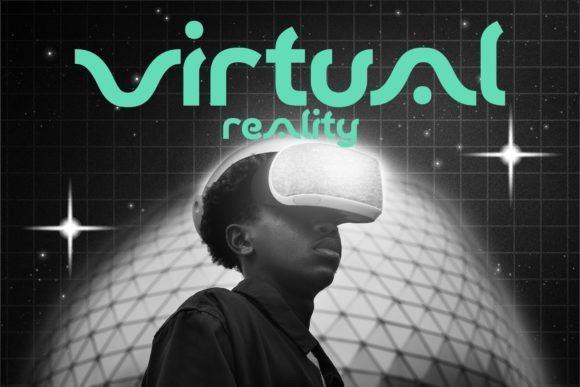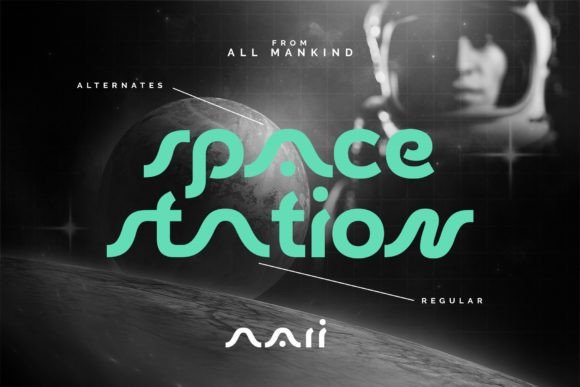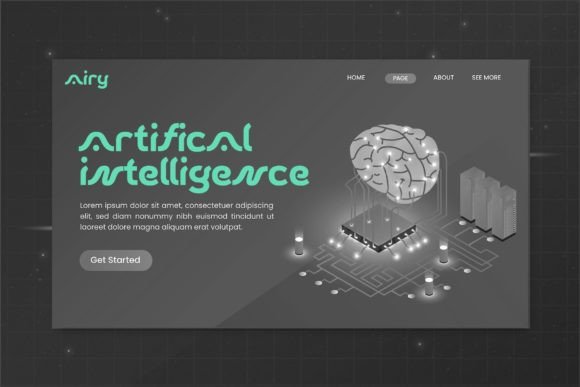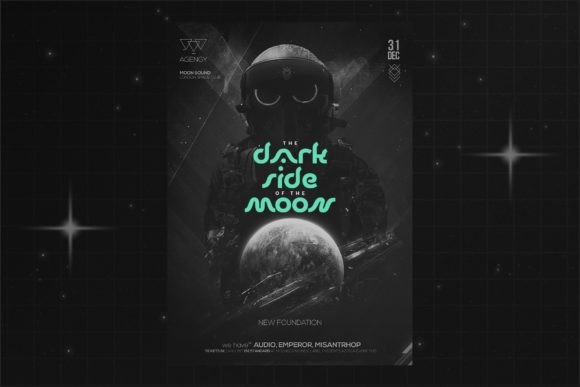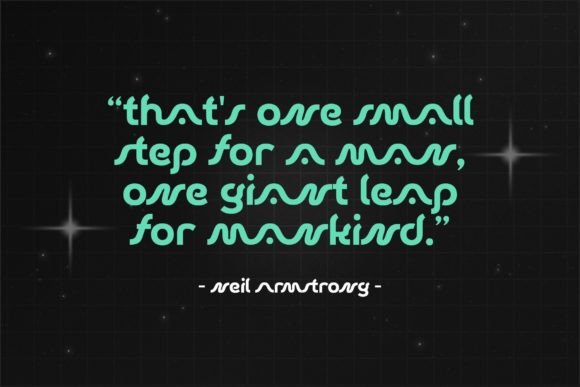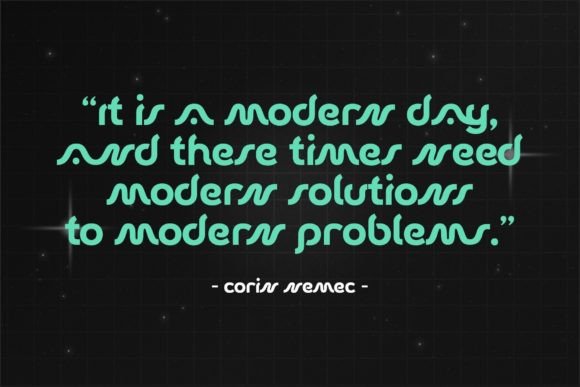
Introduction to Novan Font
Novan is a modern techno display font.
This typeface is great for creating eye-catching headlines, logos, web design, motion graphics, t-shirts, or anything you can think of .